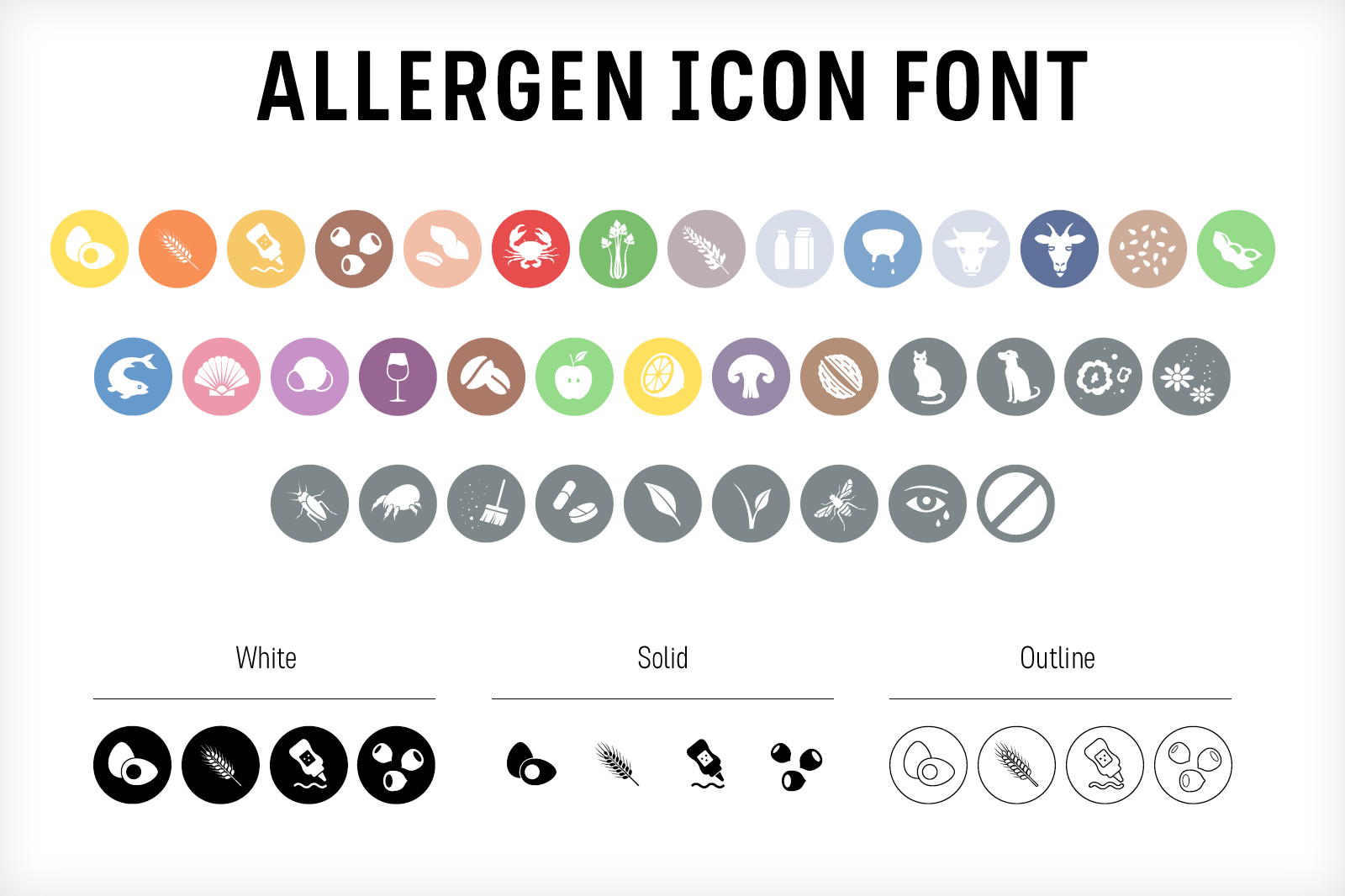
Food & Allergen icon font set
This allergens icon font is a typeface with 34 common allergy icons (allergies like gluten, cow milk and soy beans, but also plant pollens, dust mites and drug allergies) for use in:
- Food manufacturing industry
- Retail
- Packaging design industry
- Hotel and catering industry
The characters of this font are stackable: you can make your own combinations of solid or outline characters and backgrounds to fit your design perfectly.